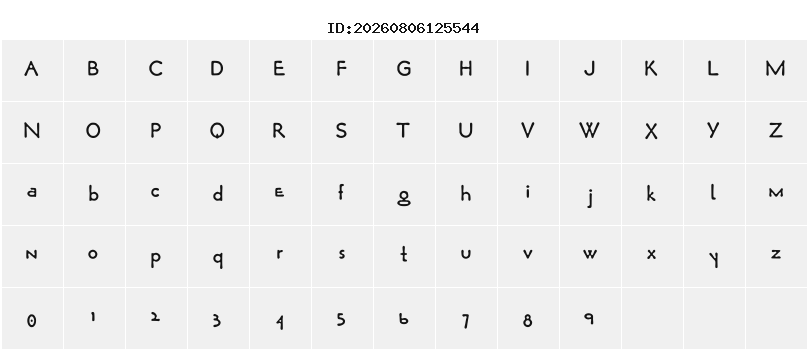
• Font Name: OpticonLoose
About OpticonLoose.ttf
OpticonLoose.ttf is a modern, elegant sans-serif font designed for ultimate readability and visual harmony. Perfect for branding, headlines, web design, and print materials.